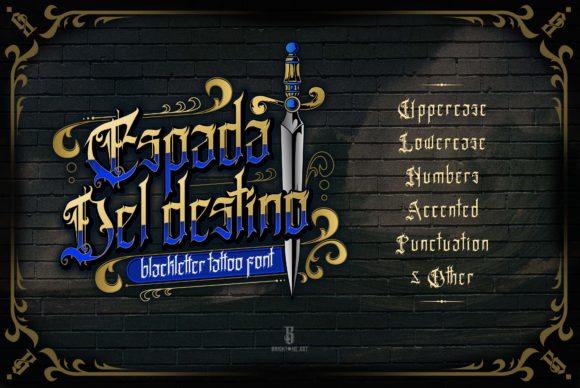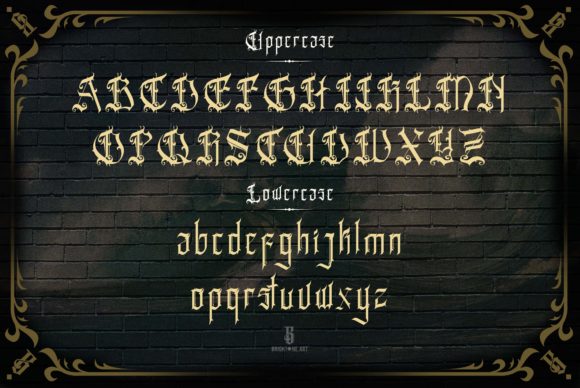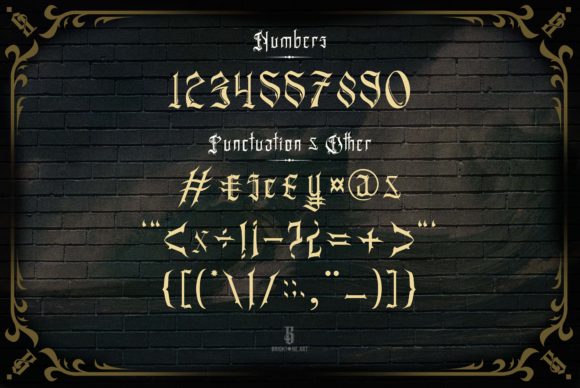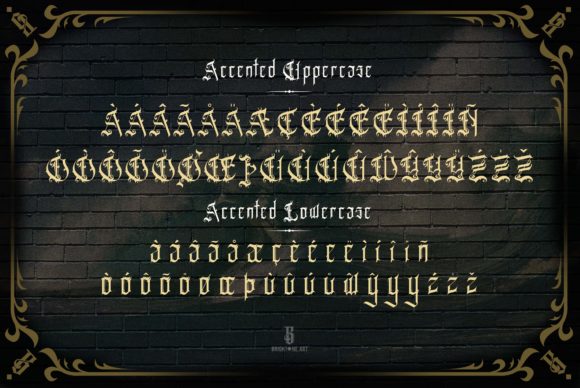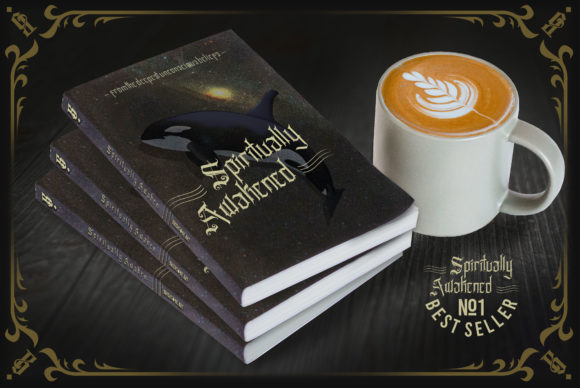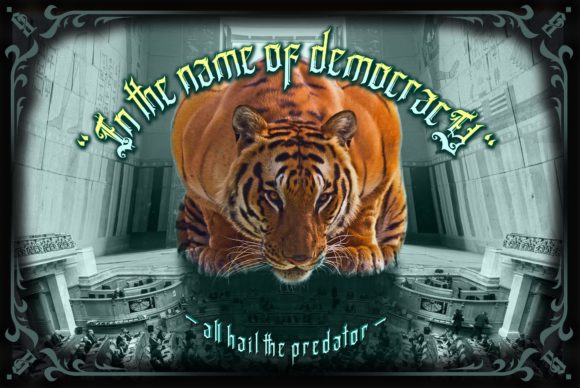
Unleash the Power of Espada Del Destino Font: Elevate Your Designs with a Bold and Authentic Blackletter Style
In the realm of typography, few fonts can evoke the same level of drama and sophistication as Espada Del Destino. This bold and authentic blackletter font is designed to make a statement, adding an air of assertiveness to any formal design. Whether you’re a seasoned designer or a crafty enthusiast, Espada Del Destino is sure to become a go-to font in your arsenal.
The Essence of Blackletter Typography
Blackletter fonts have a rich history, dating back to the Middle Ages. Characterized by their dramatic flourishes and intricate details, blackletter fonts were originally used for formal documents, such as certificates, diplomas, and official proclamations. Over time, they’ve evolved to become a staple in various design genres, including Gothic, Victorian, and vintage aesthetics.
Espada Del Destino embodies the essence of blackletter typography, boasting a robust and commanding presence that’s impossible to ignore. Its bold lines, sharp edges, and ornate details create a sense of luxury and sophistication, perfect for designs that demand attention.
What Makes Espada Del Destino Stand Out
So, what sets Espada Del Destino apart from other blackletter fonts? Here are a few key features that make it a standout:
- Authenticity: Espada Del Destino is crafted with meticulous attention to detail, ensuring an authentic blackletter experience that’s true to its historical roots.
- Bold and Assertive: This font doesn’t shy away from making a statement. Its bold lines and dramatic flourishes demand attention, adding an air of confidence to your designs.
- Versatility: Despite its bold nature, Espada Del Destino is surprisingly versatile, suitable for a range of design applications, from formal certificates to eye-catching posters.
- Ease of Use: This font is designed to be user-friendly, making it easy to incorporate into your designs, even for those without extensive typography experience.
Design Applications for Espada Del Destino
Espada Del Destino is an incredibly versatile font, suitable for a wide range of design applications. Here are a few ideas to get you started:
- Formal Certificates: Add a touch of sophistication to your certificates, diplomas, and awards with Espada Del Destino’s bold, authentic blackletter style.
- Posters and Flyers: Create eye-catching posters and flyers that demand attention with Espada Del Destino’s bold lines and dramatic flourishes.
- Branding and Logos: Establish a strong brand identity with Espada Del Destino’s unique, assertive style, perfect for luxury brands, Gothic-inspired labels, or vintage-style logos.
- Wedding and Event Stationery: Add a touch of elegance to your wedding invitations, menus, and event stationery with Espada Del Destino’s sophisticated, blackletter design.
Tips for Using Espada Del Destino Effectively
To get the most out of Espada Del Destino, keep the following tips in mind:
- Pair with contrasting fonts: Balance Espada Del Destino’s bold style with contrasting fonts to create visual interest and hierarchy.
- Experiment with colors: Try pairing Espada Del Destino with rich, bold colors to amplify its dramatic effect.
- Pay attention to spacing: Ensure adequate spacing to allow Espada Del Destino’s intricate details to shine.
Espada Del Destino is a game-changing font that can elevate your designs from ordinary to extraordinary. Its bold, authentic blackletter style is sure to make a statement, adding an air of sophistication and assertiveness to your formal designs. Whether you’re a designer, crafter, or simply a typography enthusiast, Espada Del Destino is an excellent addition to your font library.